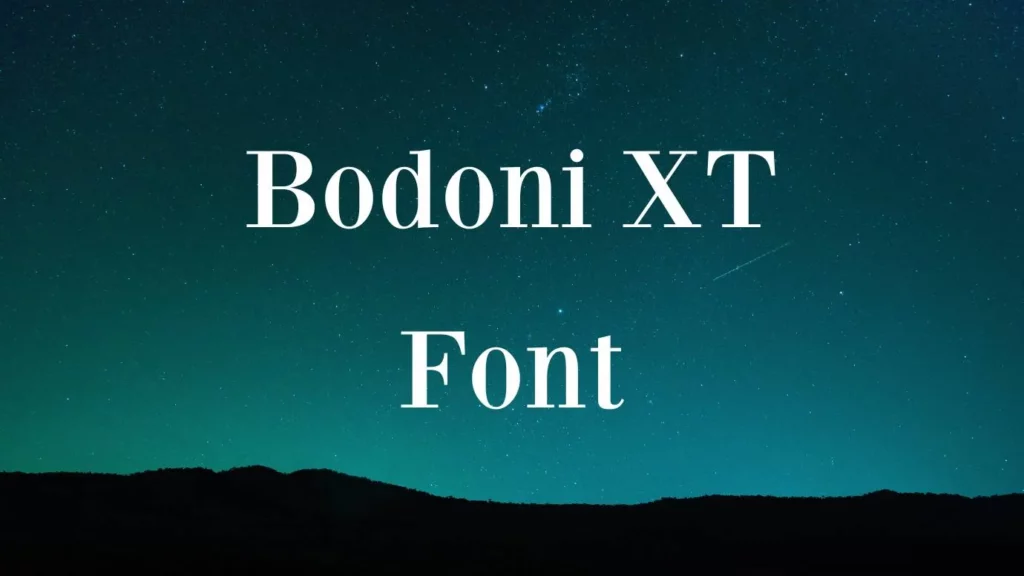
Today, we discuss the Bodoni XT Font, a fresh typeface that falls under the serif typeface category of fonts. This typeface is supported by numerous languages.
On Google, it is the most widely used typeface. With uppercase, punctuation, and more than 329 characters total, this typeface has 320 glyphs.
NameBodoni XT Font
DesignerMr. Manfred Klein
StyleSerif